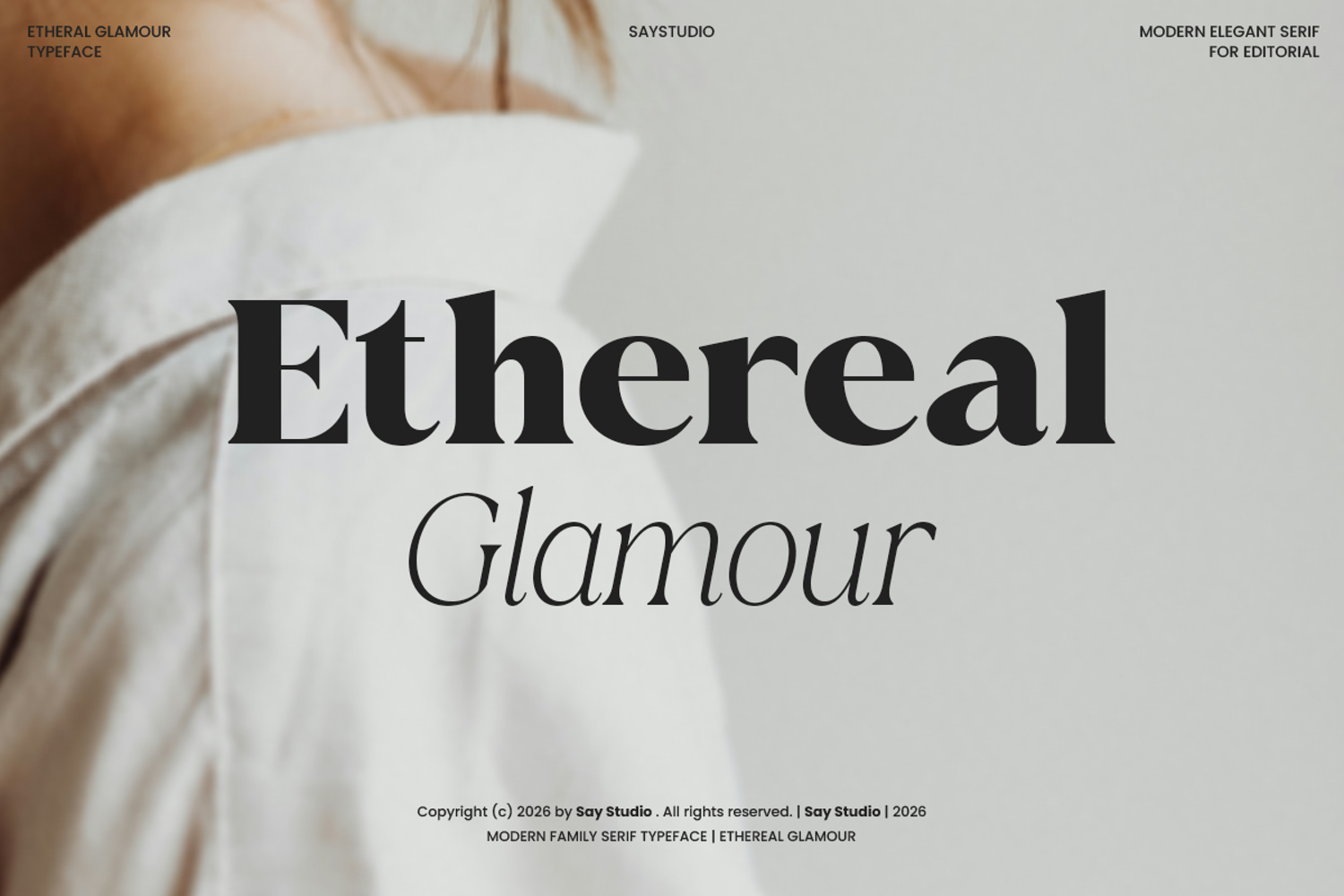
Ethereal Glamor - Modern Elegant Serif
Ethereal Glamour is a refined serif typeface that embodies softness, elegance, and timeless beauty. Inspired by high-end fashion editorials and graceful aesthetics, this font combines delicate curves with strong serif structures to create a sophisticated visual harmony. Its presence feels luxurious yet subtle, making it perfect for designs that aim to express femininity and class.
Carefully crafted for versatility, Ethereal Glamour shines in editorial layouts, branding, wedding designs, beauty campaigns, and luxury packaging. The contrast between its bold serif forms and elegant italic style adds depth and character, allowing designers to create compositions that feel both modern and poetic.
This typeface is ideal for creatives who want to deliver a premium and graceful impression. Whether used for headlines or refined typography details, Ethereal Glamour elevates your design with a soft, romantic, and high-fashion aesthetic.